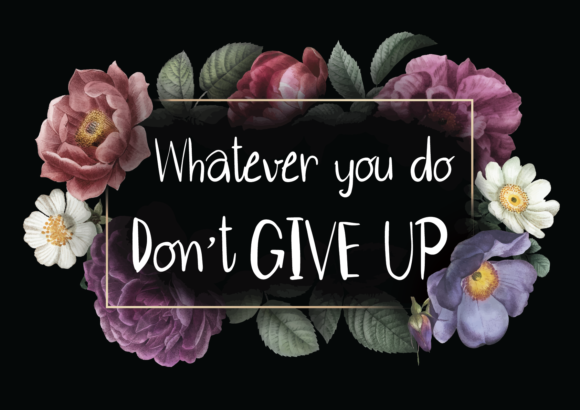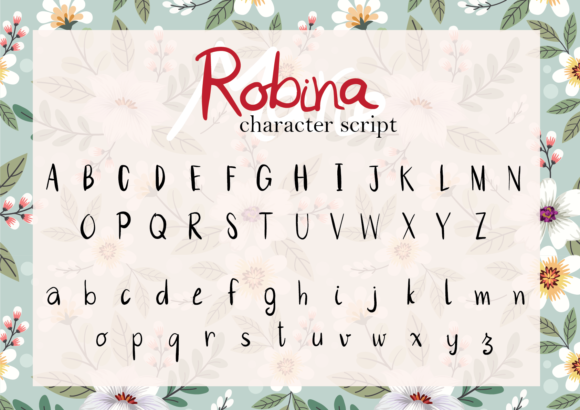
Robina Font
About Robina Font
Robina is a stunning, handwritten script font. Every single letter of this font has been carefully created and is perfectly suited for a wide range of projects. It’s a great font for invites, quotes, blog posts and much more.